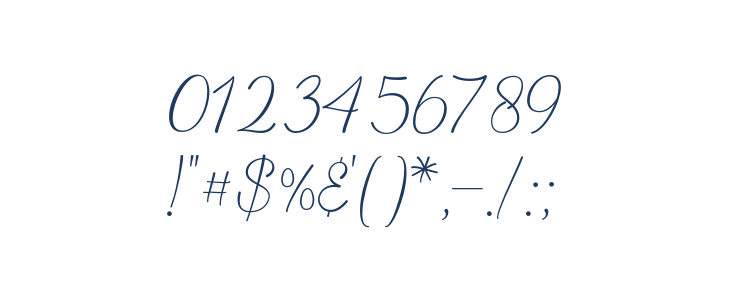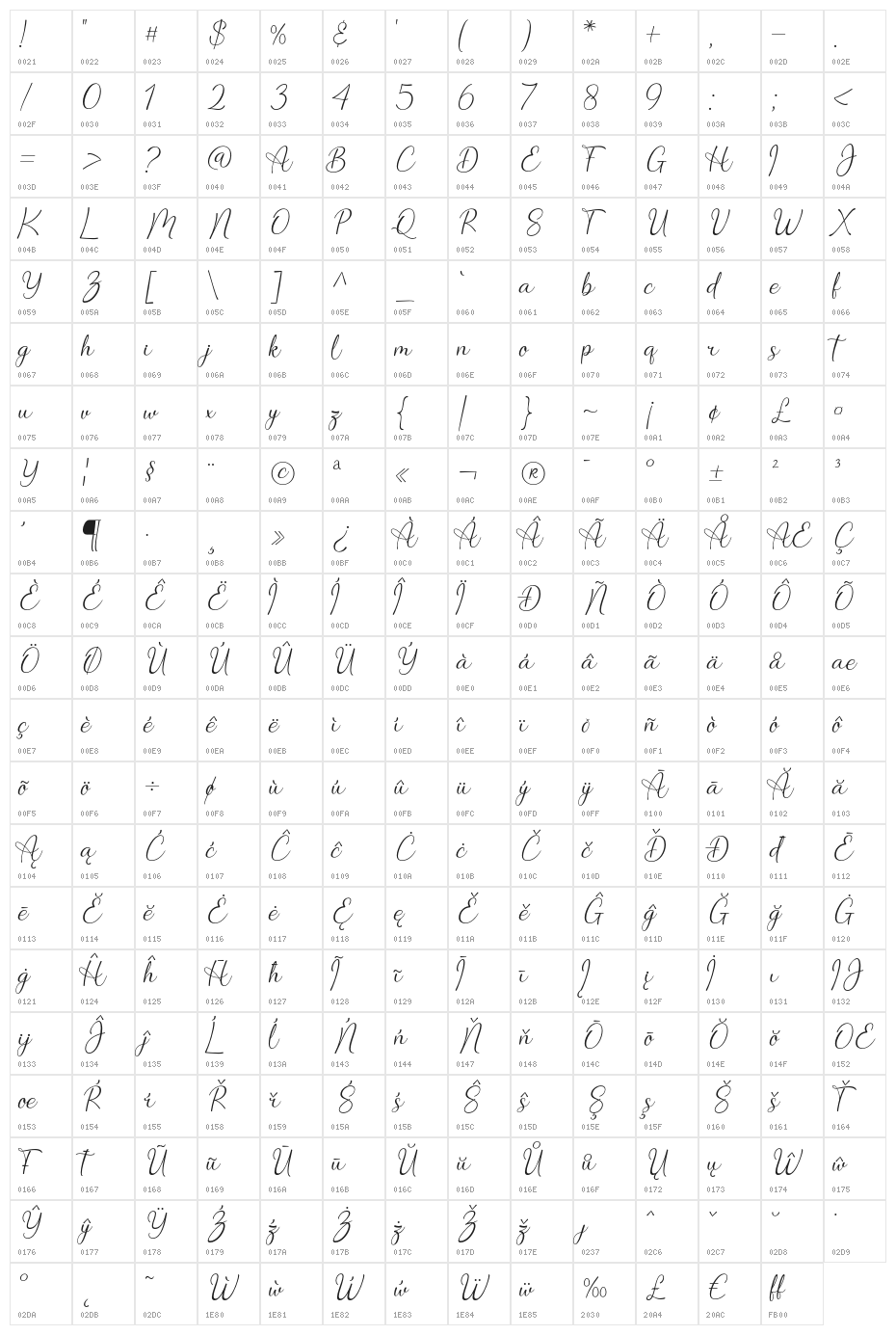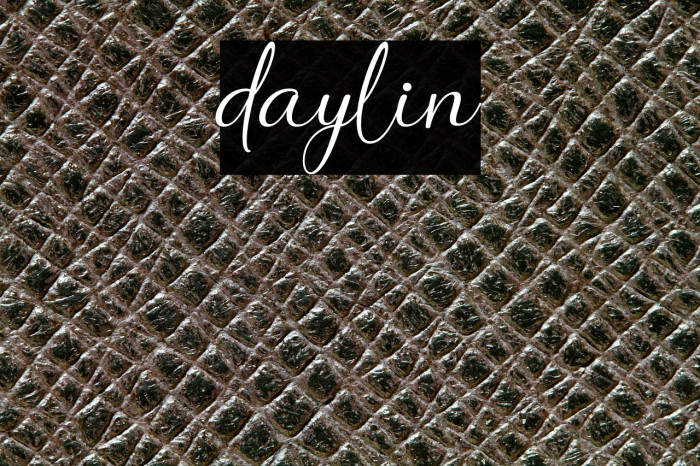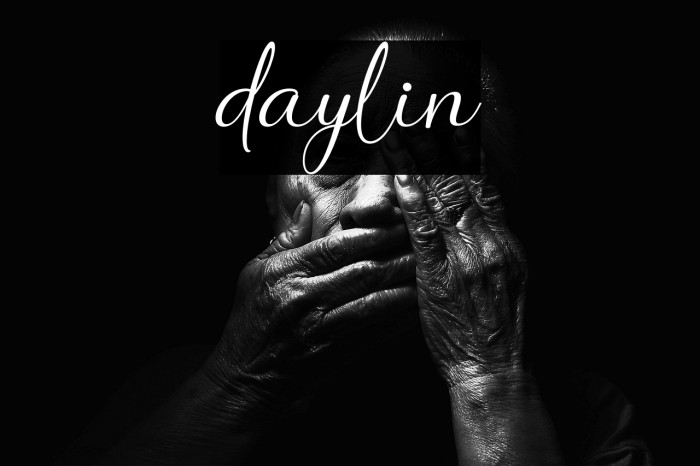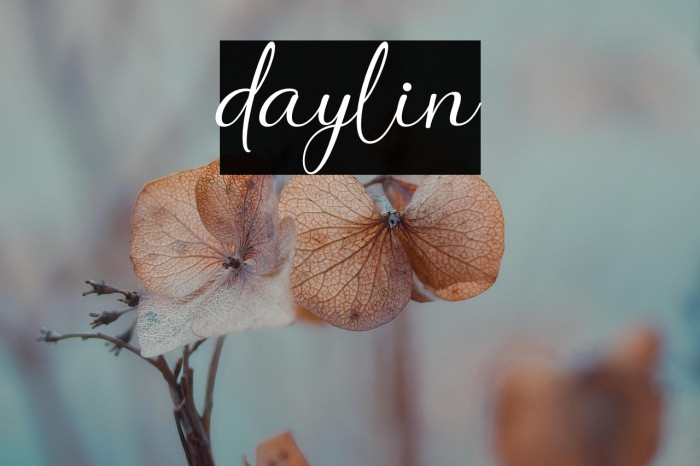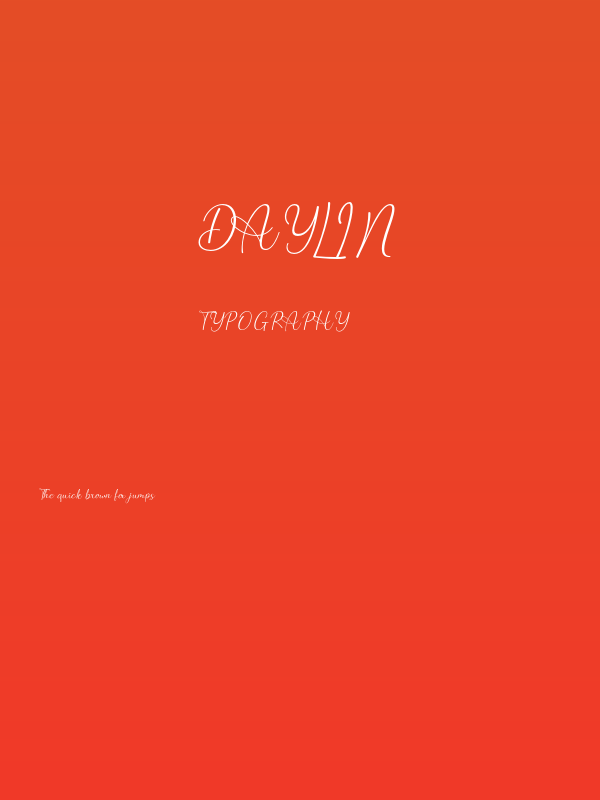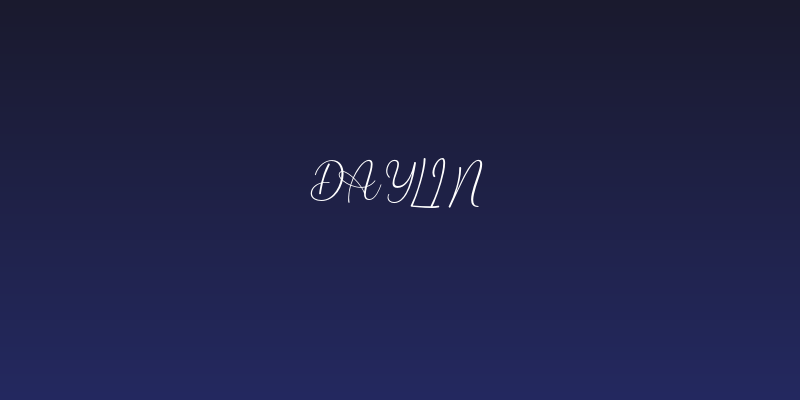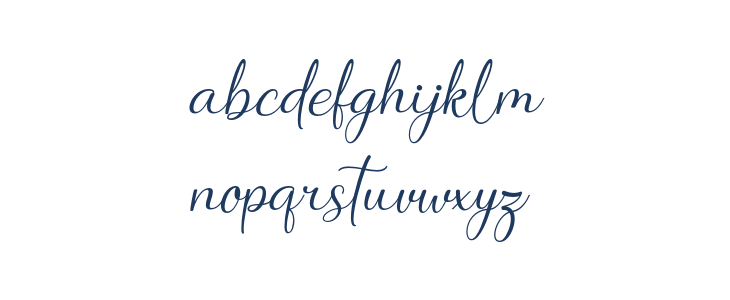
daylin Font
daylin Description
This elegant script font features flowing, interconnected letters that exude a sense of sophistication and grace. The uppercase letters are characterized by their sweeping curves and loops, while the lowercase letters maintain a consistent fluidity, enhancing the overall aesthetic. The numerals are designed with a similar flair, ensuring a cohesive look across all characters. Special characters are thoughtfully integrated, maintaining the font's stylish appearance. The font's delicate strokes and artistic design make it ideal for projects that require a touch of elegance and refinement.
| Overall Style | Elegant |
| Use Case | Logos, Invitations, Decorative text |
| Proposed Projects | Ideal for wedding invitations, elegant branding, personal stationery, and decorative signage. |